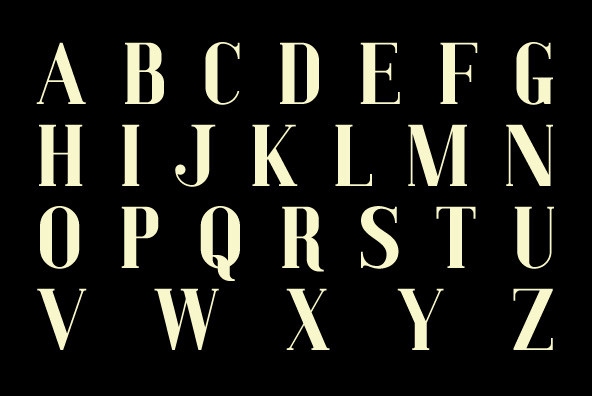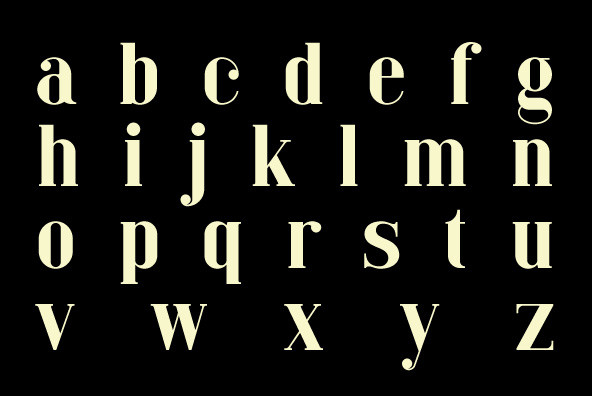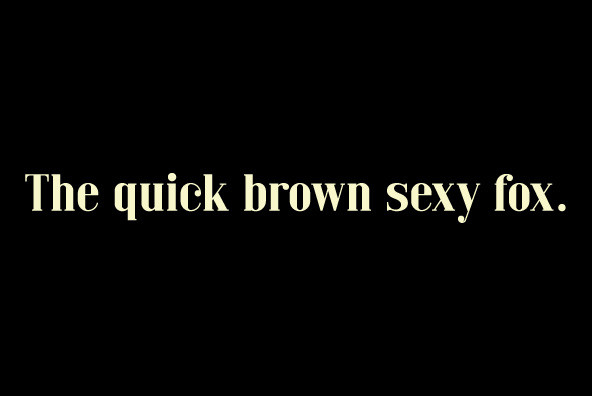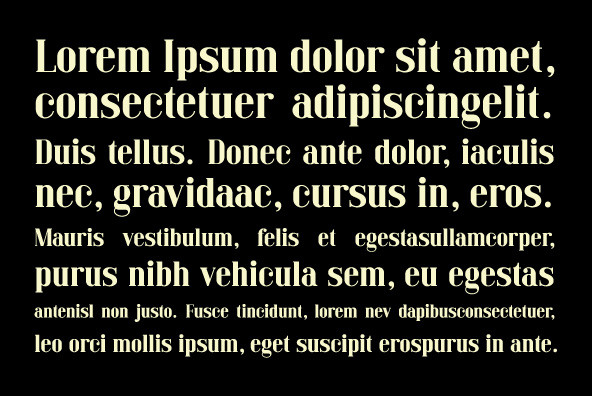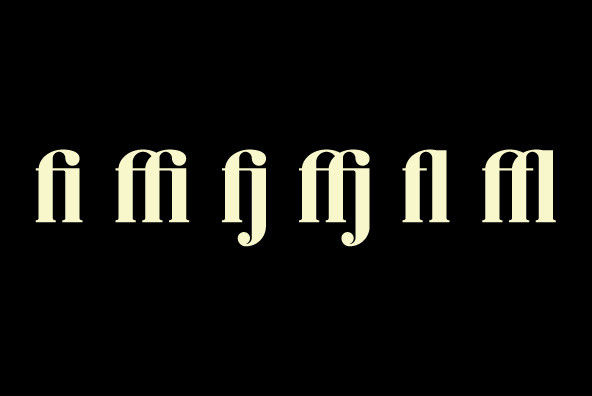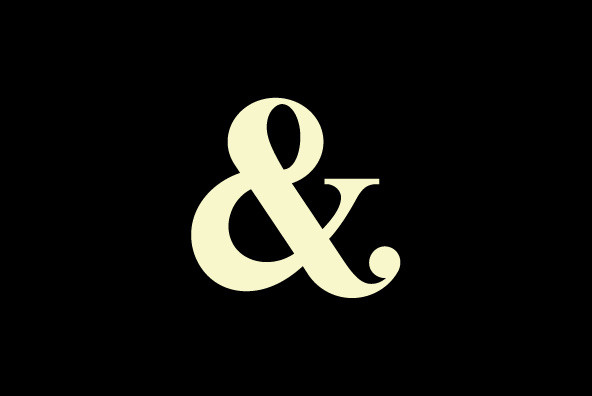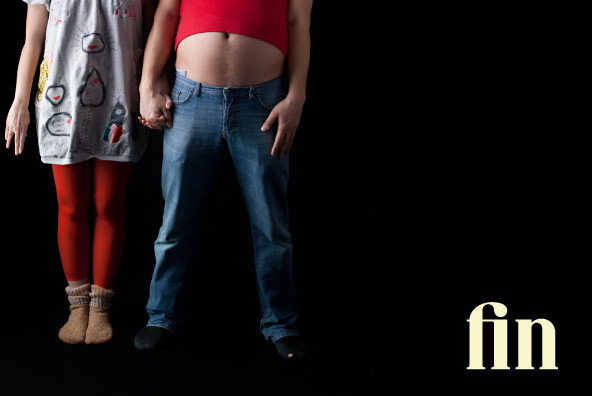
Mol is a slightly condensed feminine serif font recommended for use as a display typeface. It features hairline serifs, strong vertical stress and heavy ball terminals.